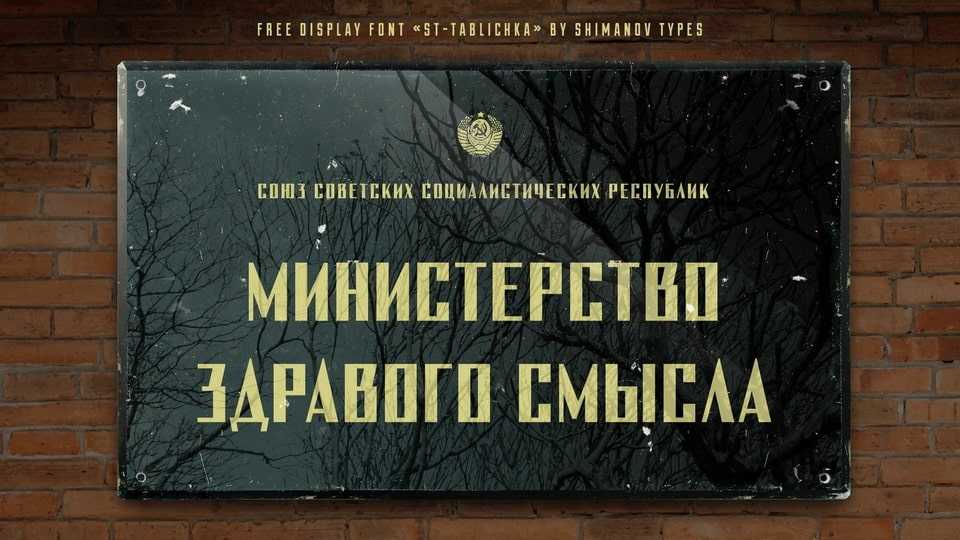
Download ST-Tablichka font, a display typeface, a replica of the font of Soviet administrative and industrial information plates. Simple, clear letters, with a retro character, currently evoking a nostalgic and humorous effect.
Designer: Alexander Shimanov